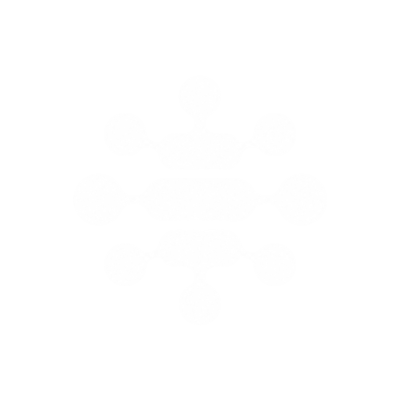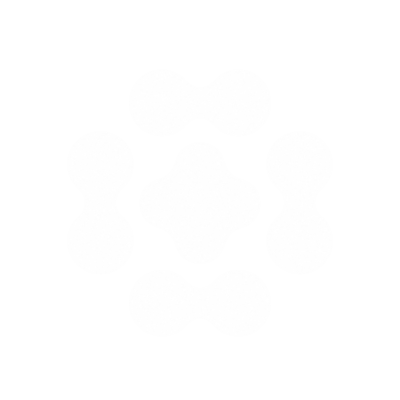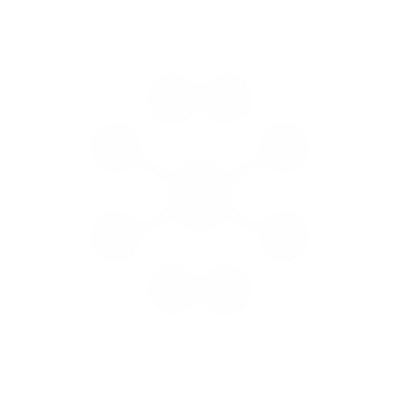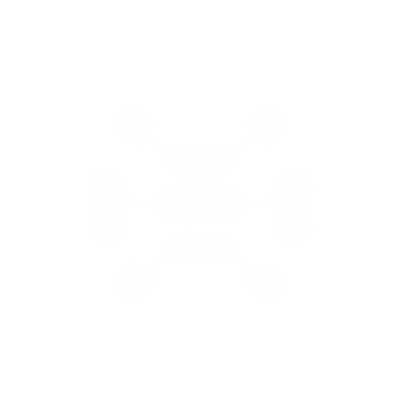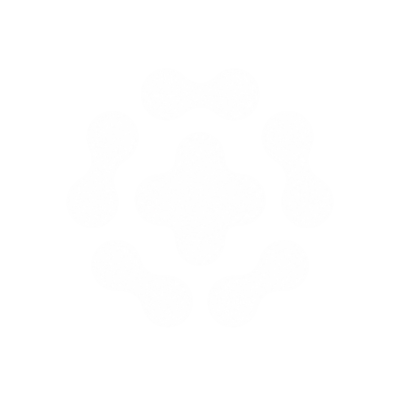
Fuser
HEX developed a dynamic brand identity for Fuser, centered on an 'emboss' effect to imply tactility and process. This digital emboss, achieved with simple drop shadows and unions, visually ties into Fuser's node-based software. The modular system, supported by the variable Marund font, effectively communicates continuous evolution. This approach for showing internal working elements as external branding is a smart integration of product and identity.